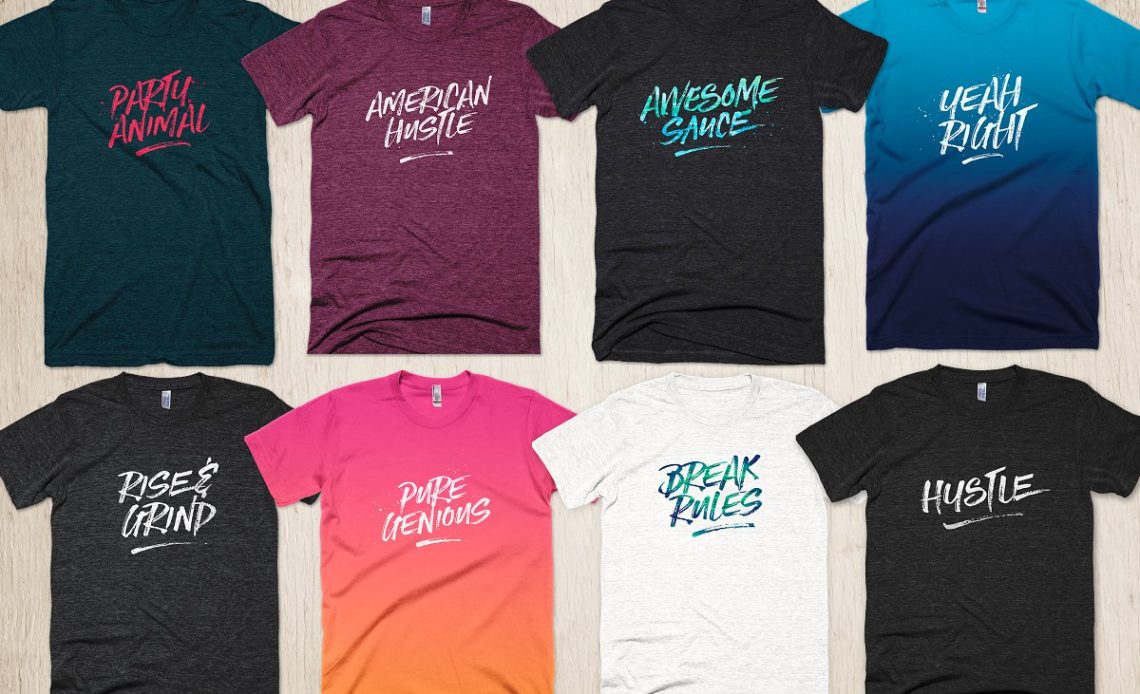
Introducing Stone Harbour Brush Font + Extras - the new dry marker script with loads of attitude and extra bonuses! Created by the talented Nicky Laatz, this font pack is perfect for anyone looking for a punchy, edgy, and artistic look for their designs.
Stone Harbour comes with two fonts - regular and italic - and is an all-uppercase font with alternate letters accessible via a glyphs panel. But that's not all! You'll also get access to 141 extra alternate letters, 18 dashing swashes, 12 die-hard splatters, and 12 bonus free photos to kickstart your creative process.
This font supports multiple languages and comes with accented characters, making it versatile for all your design needs. Though it's compatible with software like Adobe Photoshop CC 2015, Adobe Illustrator, and Adobe Indesign, it can also be used in Word, making it perfect for beginners and professionals alike.
Get inspired with Stone Harbour Brush Font + Extras and add some edgy attitude to your designs today! Happy creating!